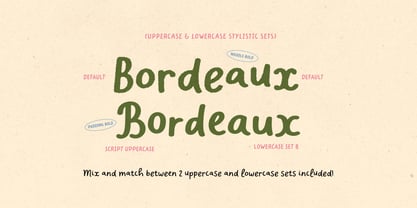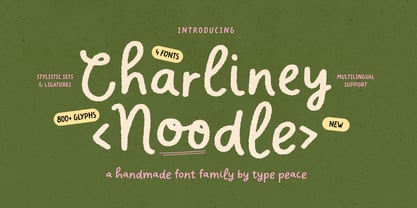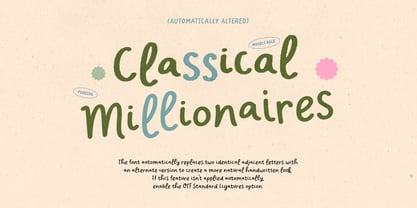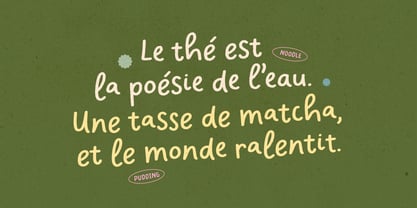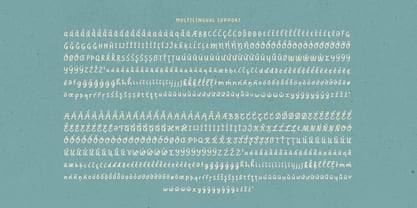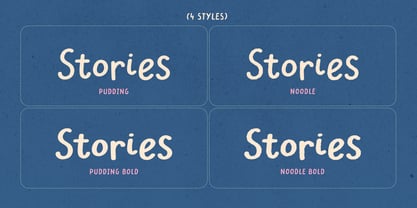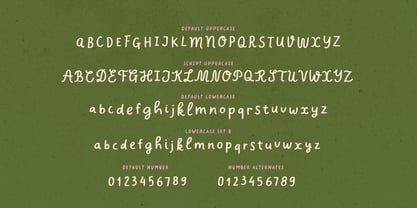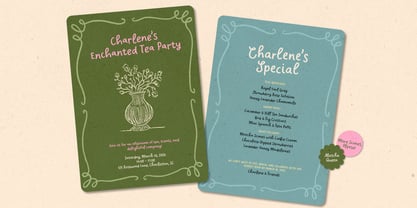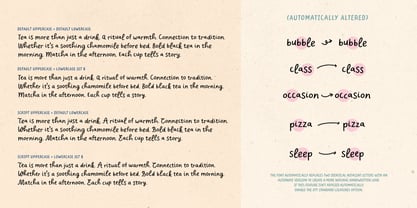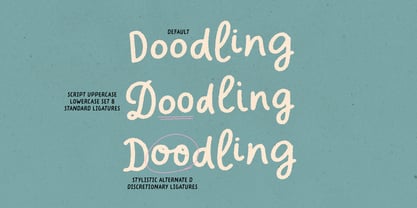
Charliney
The Charliney Font Family was designed by Hai Anh Nguyen and published by type peace. Charliney contains 4 styles and family package options. More about this family
Charliney, featuring 4 font styles (Pudding, Noodle, Pudding Bold and Noodle Bold), is a multilingual font family with a natural flow and handcrafted feel. Ideal for adding a personal, artisanal touch to your designs, from stationery to branding, invitations, packaging and so much more. The font automatically replaces two identical adjacent letters with an alternate version to create a more natural handwritten look. If this feature isn't applied automatically, simply enable the Standard Ligatures feature.